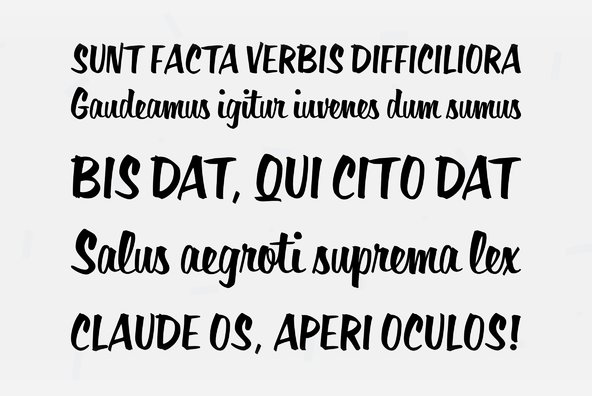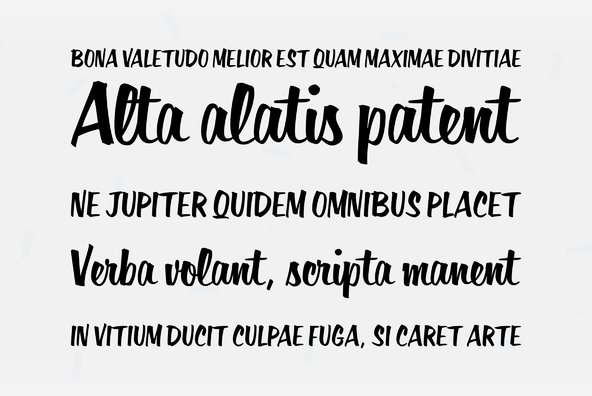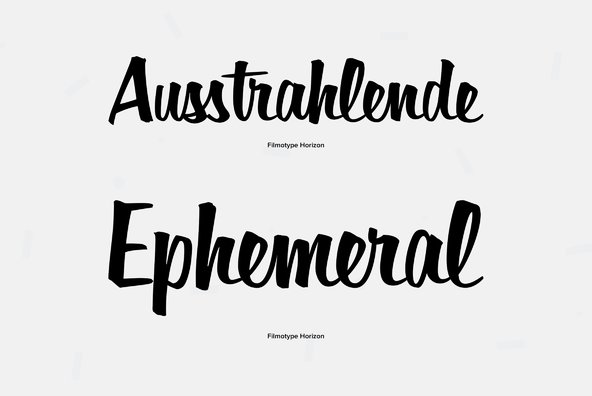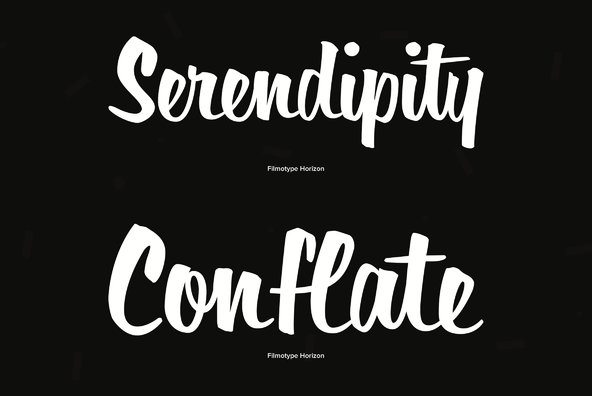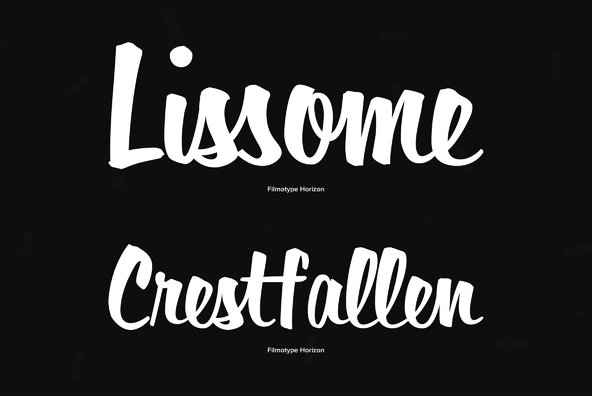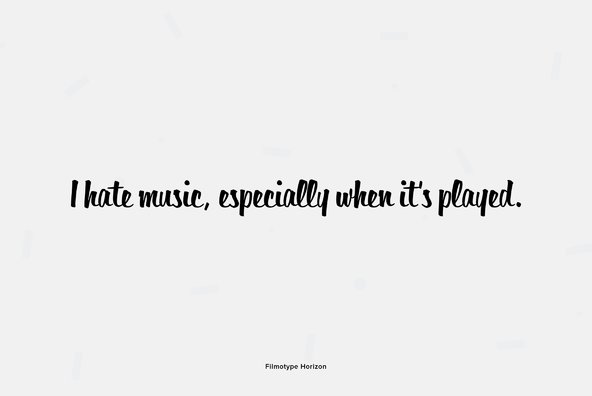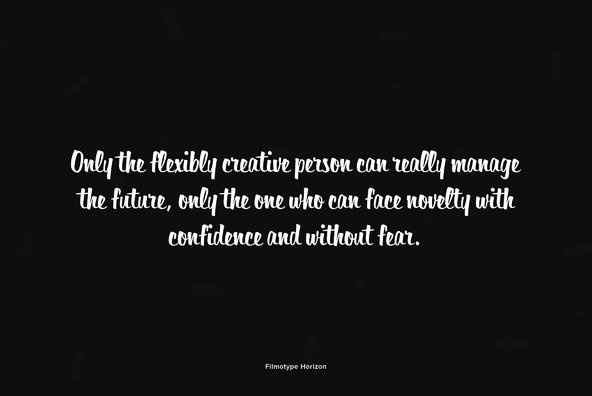
Filmotype Horizon
Filmotype Horizon was among the company’s earliest brush lettered casuals and was Introduced by Filmotype in the early-to-mid 1950s. This playful script was among Filmotype’s most popular brush script style typefaces.Filmotype Horizon was developed from the original font filmstrips and includes a full international character compliment, automatic fractionals, ordinals, and a gigantic compliment of alternate characters and ligatures creating a genuine connecting hand painted look in dynamic OpenType format.